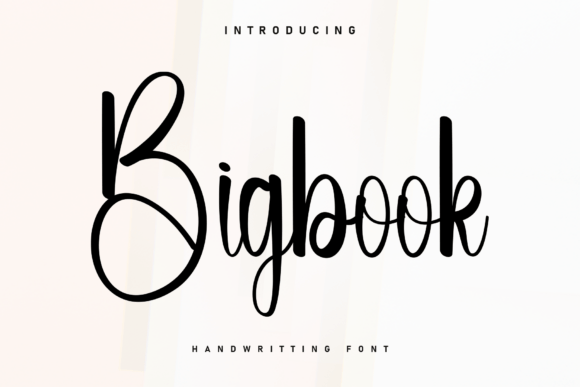
The Bigbook Font: A Sweet and Beautiful Handwritten Delight
A Personal Review: What I Love About Bigbook
Bigbook is a sweet and beautiful handwritten font that features characters that dance along the baseline, adding a cozy accent to any design project. Here are some things I absolutely love about it:
• ✨ Unique and elegant handwritten style that’s perfect for branding, packaging, and more
• ✅ Beautifully crafted characters that add a touch of warmth and personality to any design
• ⚡️ Highly legible, even at smaller font sizes
• 🎨 Versatile and can be used for a variety of design projects, from logos to social media graphics
While Bigbook is an amazing font, there are a few small quirks to be aware of:
• 🤔 Some characters, like the uppercase letters, can be a bit ornate and may not work well for very short texts or headings
• ⚠️ The font may not be suitable for very formal or corporate designs, as it has a distinctly playful and handwritten feel
The Story Behind Bigbook: Designer Inspiration
Bigbook was designed with the intention of creating a beautiful, handwritten font that would add a touch of warmth and personality to any design project. The designer wanted to craft a font that would be both elegant and approachable, with a unique character that would set it apart from more traditional fonts.
What is the best use for Bigbook? Bigbook is perfect for branding, packaging, social media graphics, and any design project where you want to add a touch of warmth and personality.
Is Bigbook suitable for body text? While Bigbook is highly legible, it’s best suited for headlines, titles, and short paragraphs. For longer body text, you may want to choose a more traditional font.